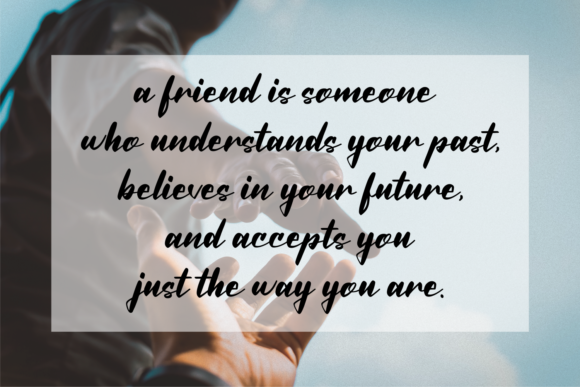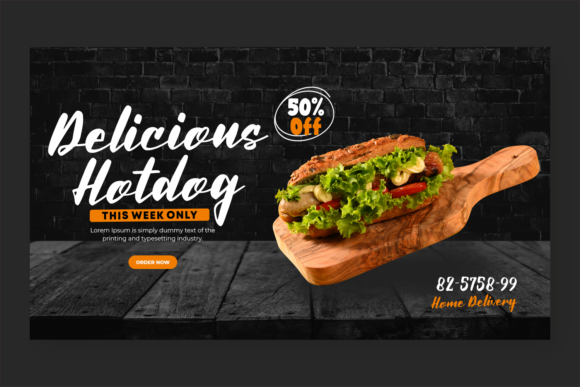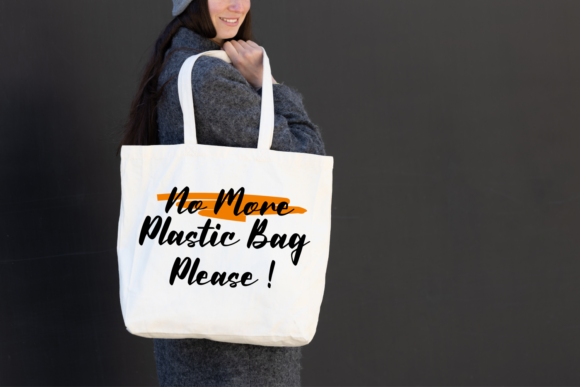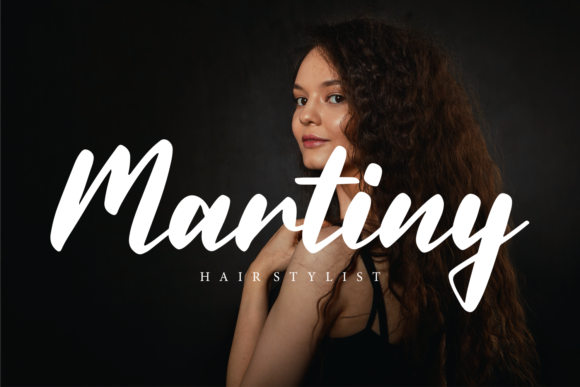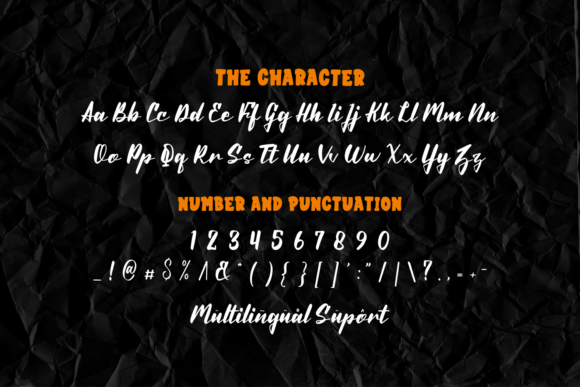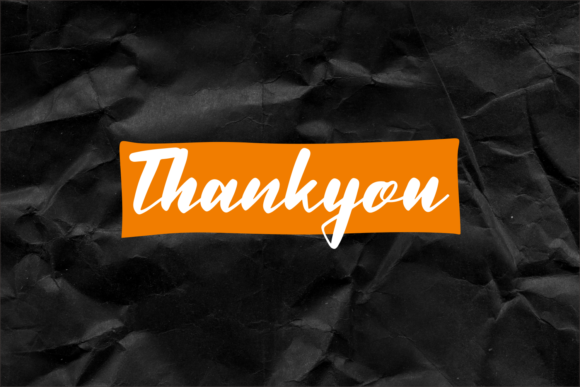
The Magical World of Beastiny Font: A Designer’s Delight
I still remember the time I was working on a project for a client who wanted a font that exuded joy and romance. I had spent hours scouring the internet for the perfect script font, but nothing seemed quite right. That was until I stumbled upon Beastiny Font. This beautiful, paint-brushed script font has been a game-changer for me, and I’m excited to share its magic with you! ✨
An Honest Review of Beastiny Font
- ✨ Trendy and Timeless: Beastiny Font has a unique, trendy vibe that still manages to feel timeless and classic.
- ✅ Versatile: This font looks stunning on a variety of design projects, from wedding invitations to branding materials.
- 💕 Emotional Connection: The gentle, paint-brushed strokes of Beastiny Font evoke a sense of joy and romance, making it perfect for projects that require an emotional connection.
While Beastiny Font is an amazing addition to any design project, there are a few things to keep in mind: 🤔
- ⚠️ Legibility at Small Sizes: As with many script fonts, Beastiny can be a bit tricky to read at very small sizes. Be sure to test it out at different sizes to ensure it’s legible for your project.
- ⚠️ Limited Use in Body Text: While Beastiny Font is perfect for headings and titles, it may not be the best choice for body text. Its unique, cursive style can be a bit challenging to read in large blocks of text.
The Story Behind Beastiny Font
Beastiny Font was designed with the intention of capturing the essence of joy and romance in a beautiful, paint-brushed script. The designer, inspired by the whimsical world of fantasy and nature, crafted a font that would bring a touch of magic to any design project. While the real story behind the font’s creation might be shrouded in mystery, its enchanting charm is undeniable! 🌟
| Font Name | Beastiny Font |
| Author | Forberas Club |
Q: What type of projects is Beastiny Font best suited for?
A: Beastiny Font is perfect for a variety of design projects, including wedding invitations, branding materials, and any project that requires a touch of joy and romance.
Q: Is Beastiny Font difficult to read?
A: As with many script fonts, Beastiny can be a bit challenging to read at small sizes or in large blocks of text. However, it’s perfect for headings and titles where legibility is less of an issue.